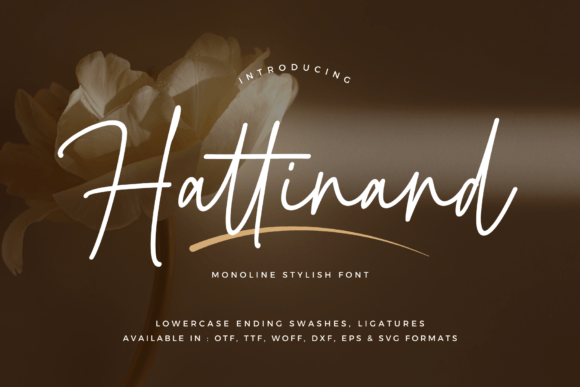
Unleash the Enchanting Hattinand Script: A Font That Captures Elegance and Sophistication
Prepare to be mesmerized by Hattinand Script, a monoline script font that exudes elegance and sophistication like no other. Each letter, meticulously crafted with beautifully crafted alternates and ligatures, dances across the page with a graceful fluidity that is simply captivating.
Hattinand Script is a versatile masterpiece that elevates any project to new heights. Whether you're crafting logos, designing social media graphics, or creating eye-catching advertisements, this font adds a touch of magic that leaves a lasting impression.
With its clean lines and delicate curves, Hattinand Script enhances readability and legibility, making it a perfect choice for branding, where clarity and memorability are paramount. Let your brand shine with a font that speaks volumes about its refinement and attention to detail.
Step into a world of modern and stylish design with Hattinand Script. Its contemporary aesthetic adds a touch of allure to any creation, making it stand out from the mundane and capture the attention of your audience. Experience the power of a font that transforms the ordinary into the extraordinary.
Hattinand Script is more than just a font; it's an artistic expression that breathes life into your designs. Its charm and gracefulness evoke emotions and create a connection between you and your audience. Let your creativity flourish as you explore the endless possibilities of this enchanting monoline script font.
Don't settle for ordinary fonts that blend into the background. Embrace Hattinand Script, a font that commands attention, ignites imaginations, and leaves an indelible mark on the minds of those who encounter it. Experience the transformative power of a font that elevates your designs to new heights of beauty and sophistication.